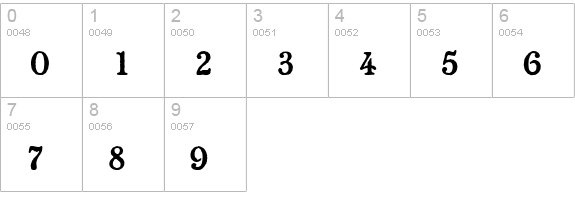
ChesterfieldAntD Font Details
ChesterfieldAntD font is a stylish and elegant typeface that exudes sophistication and charm. With its unique blend of classic and modern design elements, this font is perfect for adding a touch of luxury to your projects. The graceful curves and intricate details of ChesterfieldAntD font make it ideal for branding, logos, invitations, and more. Best of all, this font is available for free download at FontsMarket.com, making it accessible to everyone looking to elevate their designs with a touch of class. Don't miss out on the opportunity to enhance your projects with the timeless beauty of ChesterfieldAntD font.